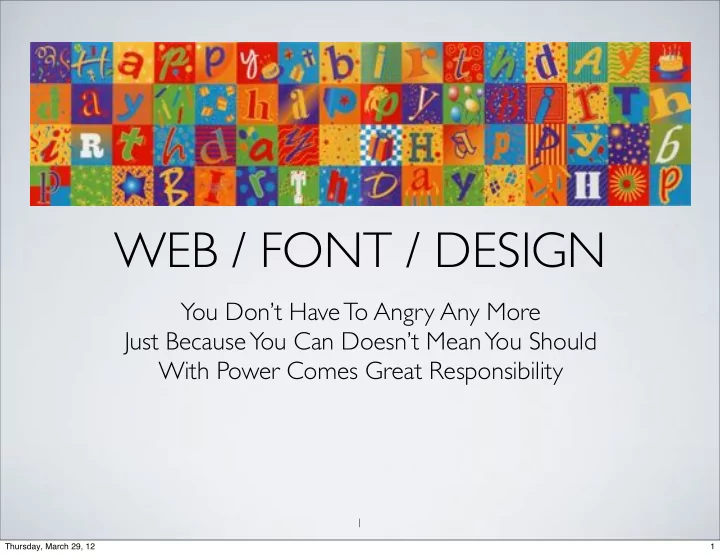
You Don’t Have To Angry Any More Just Because You Can Doesn’t Mean You Should With Power Comes Great Responsibility
WEB / FONT / DESIGN
WEB / FONT / DESIGN You Dont Have To Angry Any More Just Because You Can Doesnt Mean You Should With Power Comes Great Responsibility 1 Thursday, March 29, 12 1 ABCS HAVE LONG HISTORY, DESIGN FOLLOWS TOOLS Technology Type
You Don’t Have To Angry Any More Just Because You Can Doesn’t Mean You Should With Power Comes Great Responsibility
1 Thursday, March 29, 12“Technology” Type & Design Development Stylus, Clay, Stone Engraved letters, clay tablets, monuments Quills, Pens & Brushes Calligraphy, papyrus, hides, scrolls, codex Printing Wood & metal type, printing, paper Photography More finesse in print, imaging and letters Web Pixels, digital, less space limits, fluid
2 Thursday, March 29, 12design, they become more than just content.
3 Thursday, March 29, 12Content and Design are separate things.
5 Thursday, March 29, 12design principles
8 Thursday, March 29, 12Use creative shapes for your content if there is a reason.
Line Type Texture Shape
11 Thursday, March 29, 12value, color, weight,
contrast, use for motion, mood
12 Thursday, March 29, 12STRUCTURE - EXAMPLES
14 Thursday, March 29, 12Terminology
Roman
WEB
ESQ
Schoolbook
TYPE FAMILY CATEGORIES
Titles Body Copy Accent Decorative Sans-serif Bold sans serif Bold Regular or light Italic Strong, bright color Black or dark color Tint of title color
18 Thursday, March 29, 12Deco Style
Sans-serif type face will work nicely with a fancier title font. Do your line spacing with the measurement used by your software. Keynote/InDesign: Line is 0.8 pts, 5 pts before paragraph, 0 pts after. CSS: <html> <head> <style type="text/css"> p.small {line-height:70%;} p.big {line-height:200%;} </style> </head>
Bold Style
Regular, small size type face will work nicely with a bolder weight of the same face. Do your line spacing with the measurement used by your software. Keynote/InDesign: Line is 0.8 pts, 5 pts before paragraph, 0 pts after. CSS: <html> <head> <style type="text/css"> p.small {line-height:70%;} p.big {line-height:200%;} </style> </head>
Attribute Print Web Edge Space Margins Padding Alignment Right, Left, Justified Letter Spacing Kerning/Tracking Character Slider Word Spacing Tracking Word Spacing Line Spacing Leading Line Height Color Color, Value Color Wrap Text Wrap Float List Bullets, Numbers List Style
22 Thursday, March 29, 12How to measure
Terminology Overlaps
Design
naming convention confusion"
PRINT EXAMPLE
WEB EXAMPLE
together
coders and designers equally - my best way to learn
height of an element, i.e. paragraph
specifies the line height or as known in the print world, line spacing.
property sets all the list properties in one declaration.
set, are (in order): list-style- type, list-style-position, list- style-image.